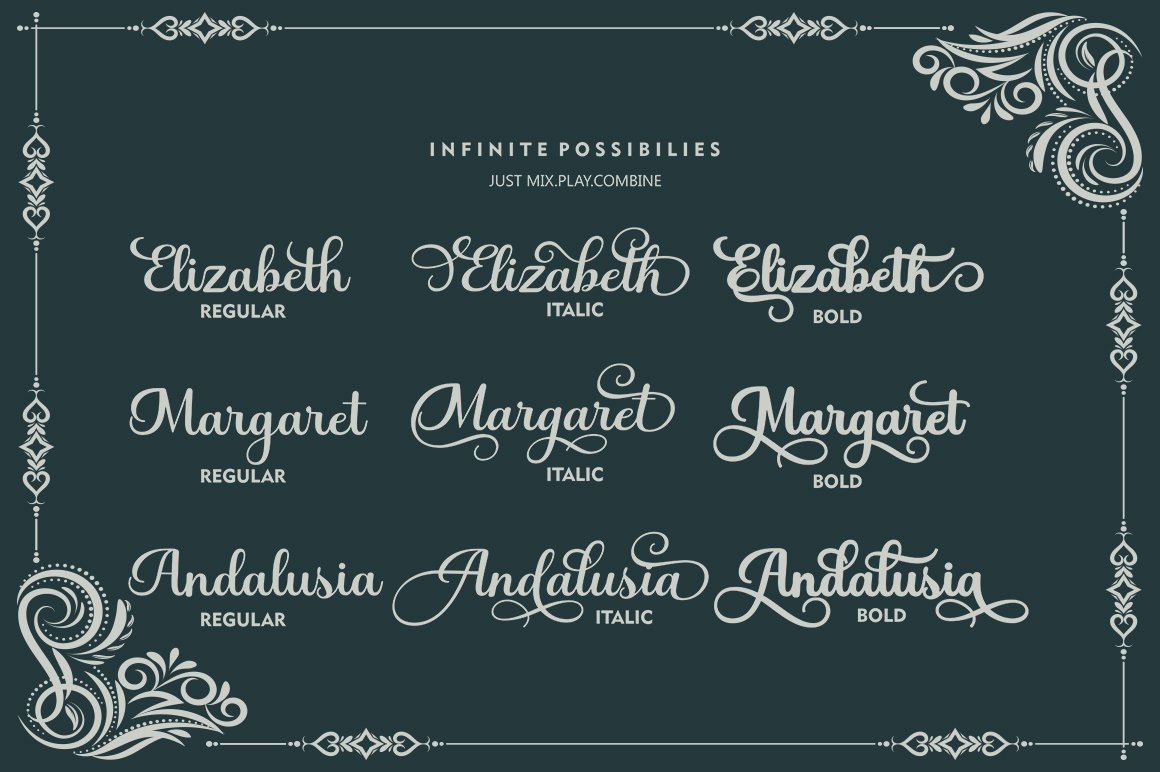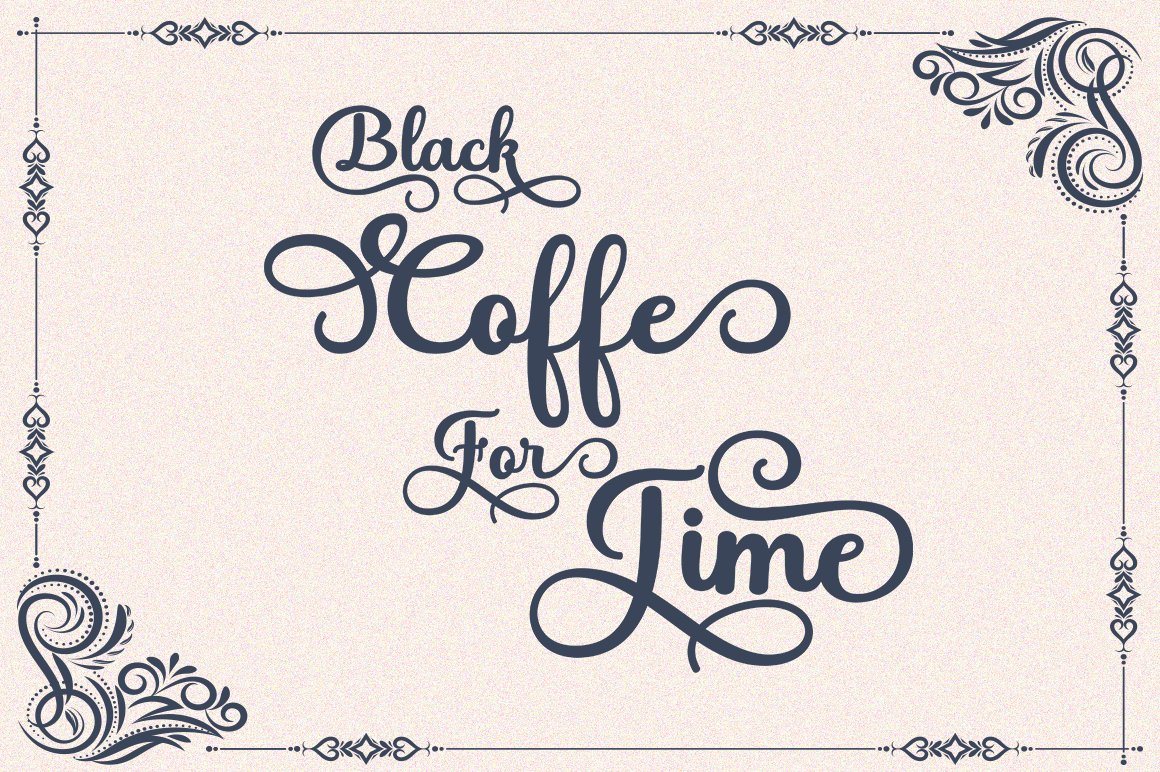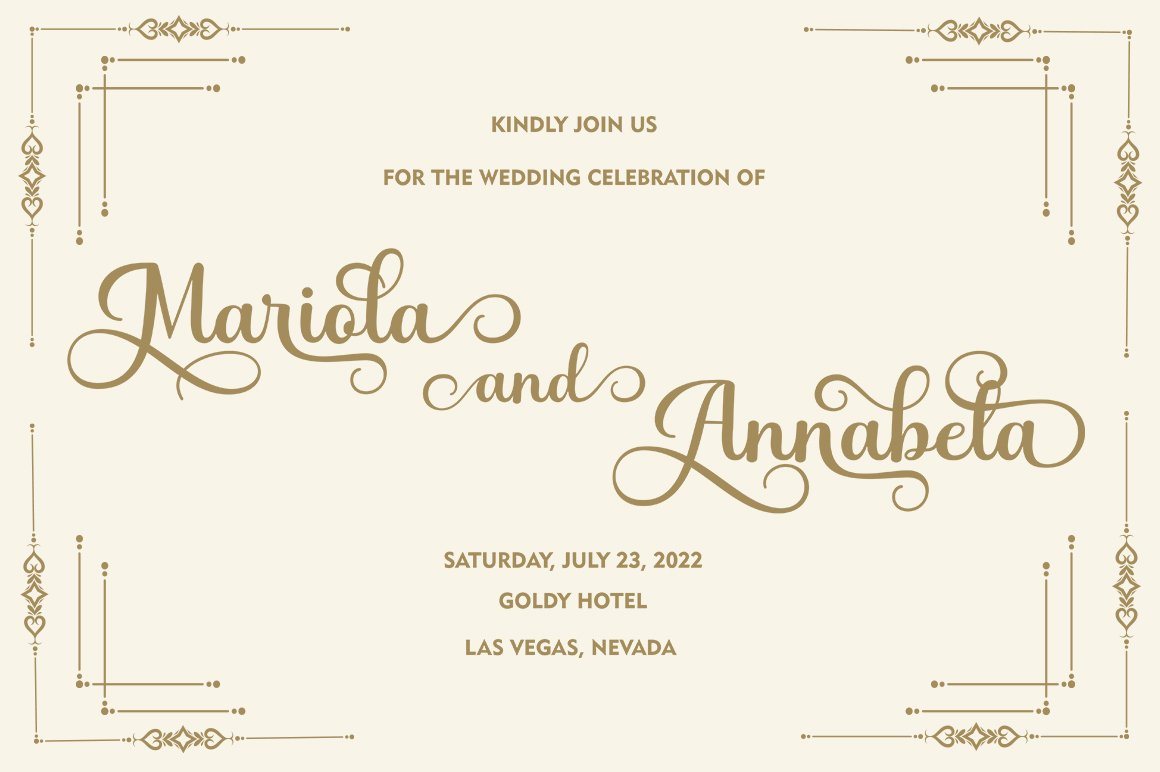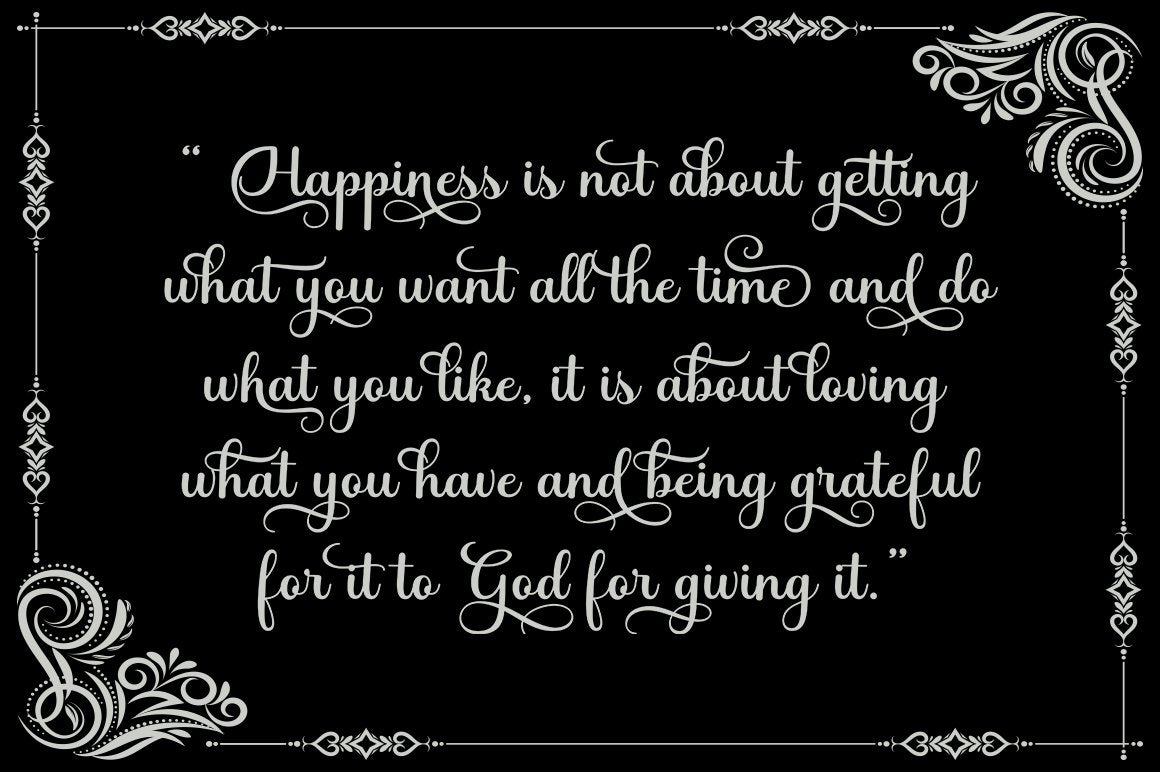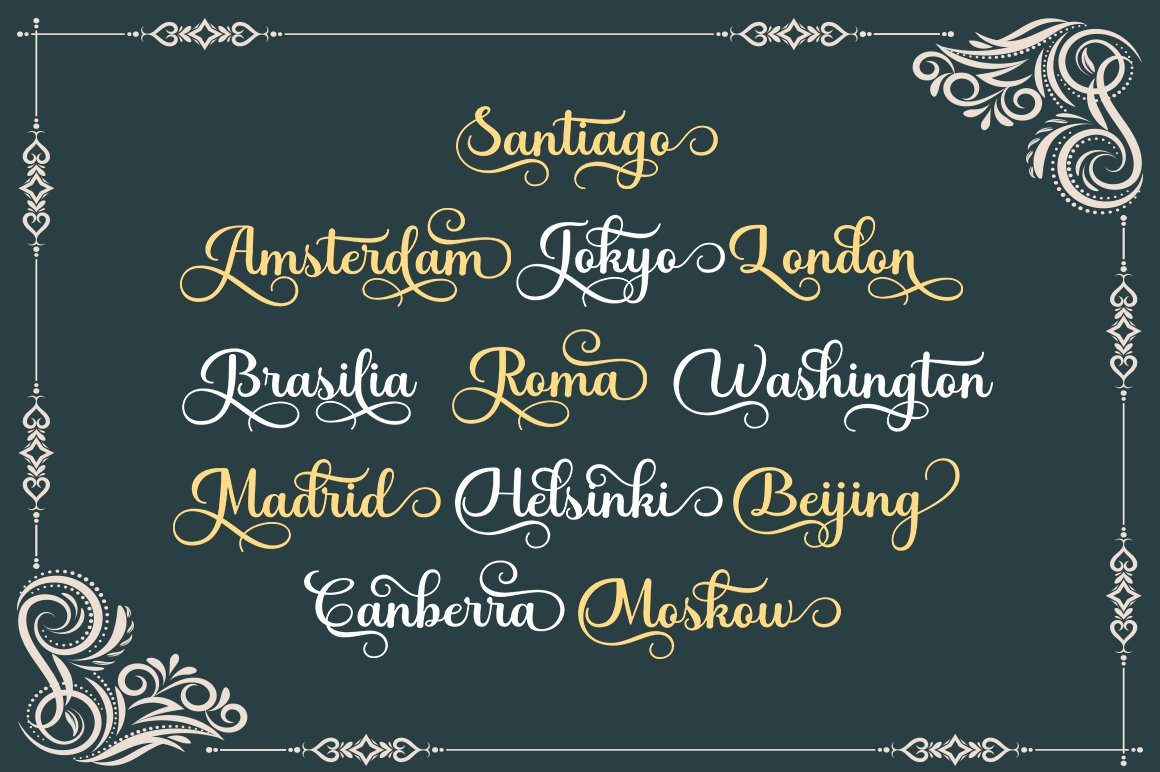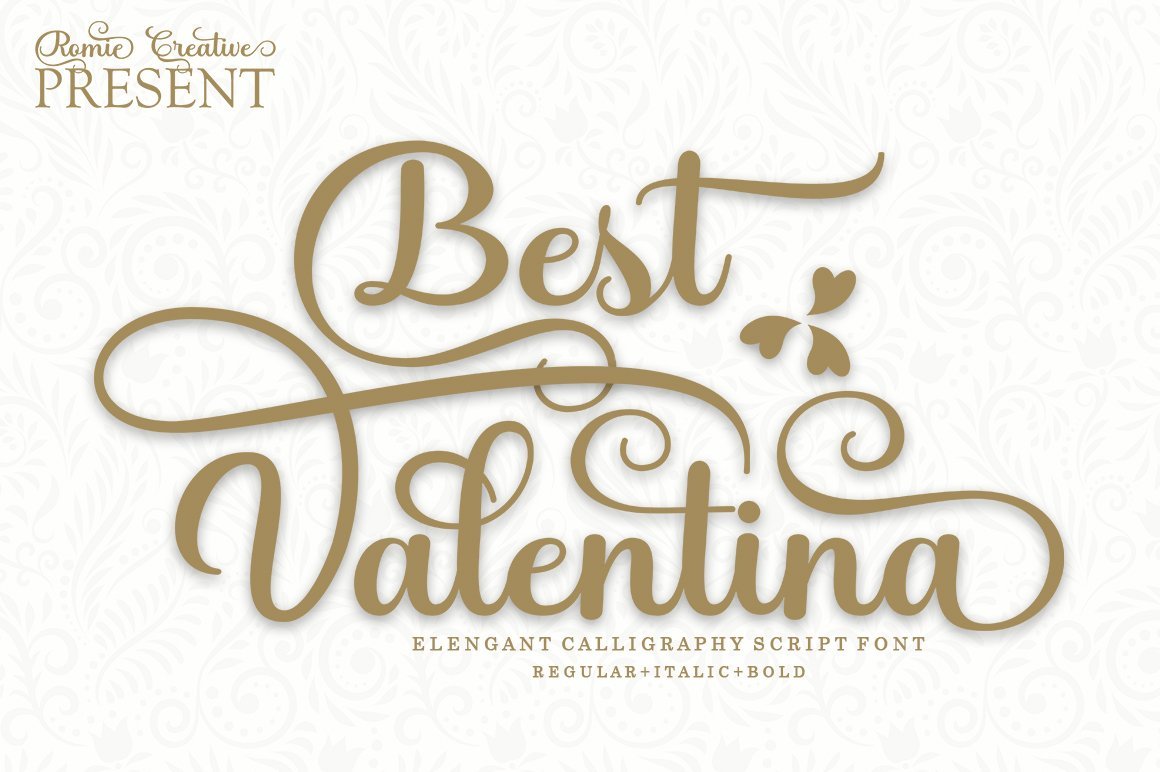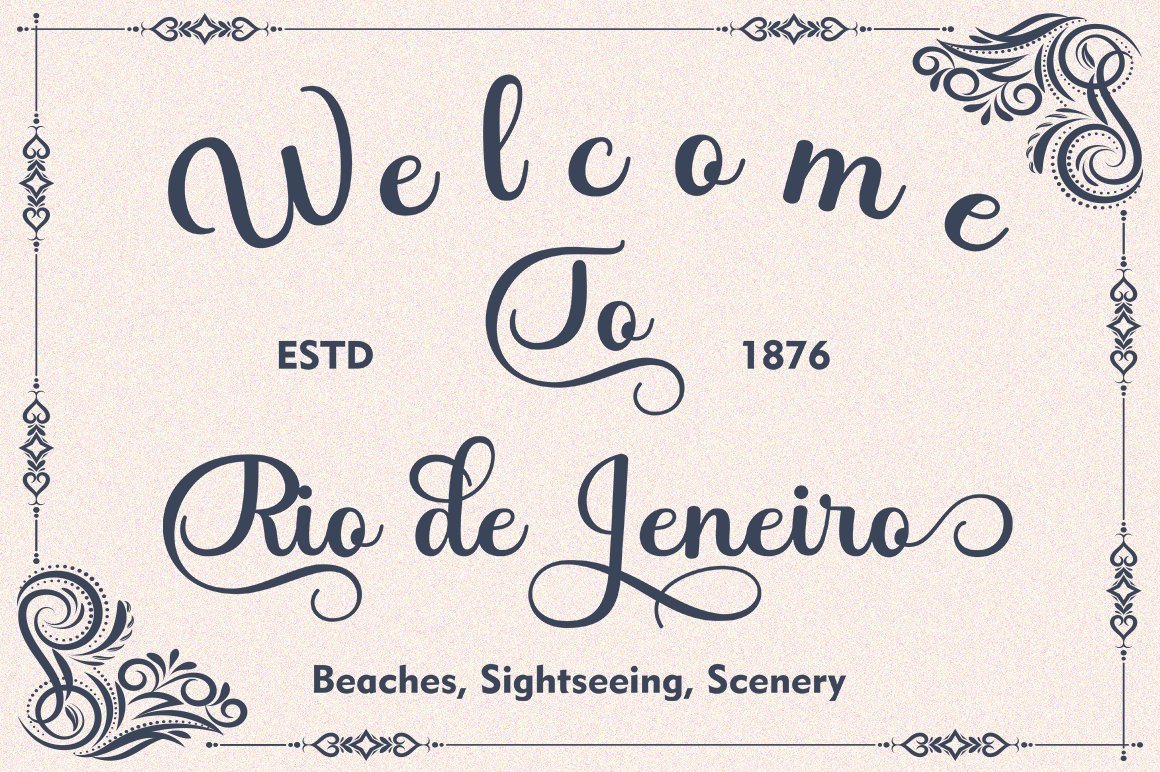
Best Valentina
About Best Valentina
Best Valentina is a calligraphy script font that comes with a lovely alternative character. mix of copper calligraphy in a handlettering style. Designed to convey an elegant style. Best Valentina is attractive as a typeface that is smooth, clean, feminine, sensual, glamorous, simple and very legible. Its classic style is very suitable to be applied to all types of formal pieces such as invitations, labels, menus, logos, fashion, make up, stationery, letterpress, romantic novels, magazines, books, greeting / wedding cards, packaging, labels. Best Valentina features 384+ glyphs and 183 alternative characters. includes multiple language support. With OpenType features with stylistic alternates, ligatures and swash characters, which allow you to mix and match pairs of letters to suit your design, and also a touch of ornament makes this font look elegant. Files include: Best Valentina Script Regular (OTF, TTF) Best Valentina Script Bold (OTF, TTF) Best Valentina Script Italic (OTF, TTF) To activate the OpenType Stylistic alternative, you need a program that supports OpenType features such as Adobe Illustrator CS, Adobe Indesign & CorelDraw X6-X7, Microsoft Word 2010 or a later version. (Windows), Font Book (Mac) or a software program such as PopChar (for Windows and Mac).